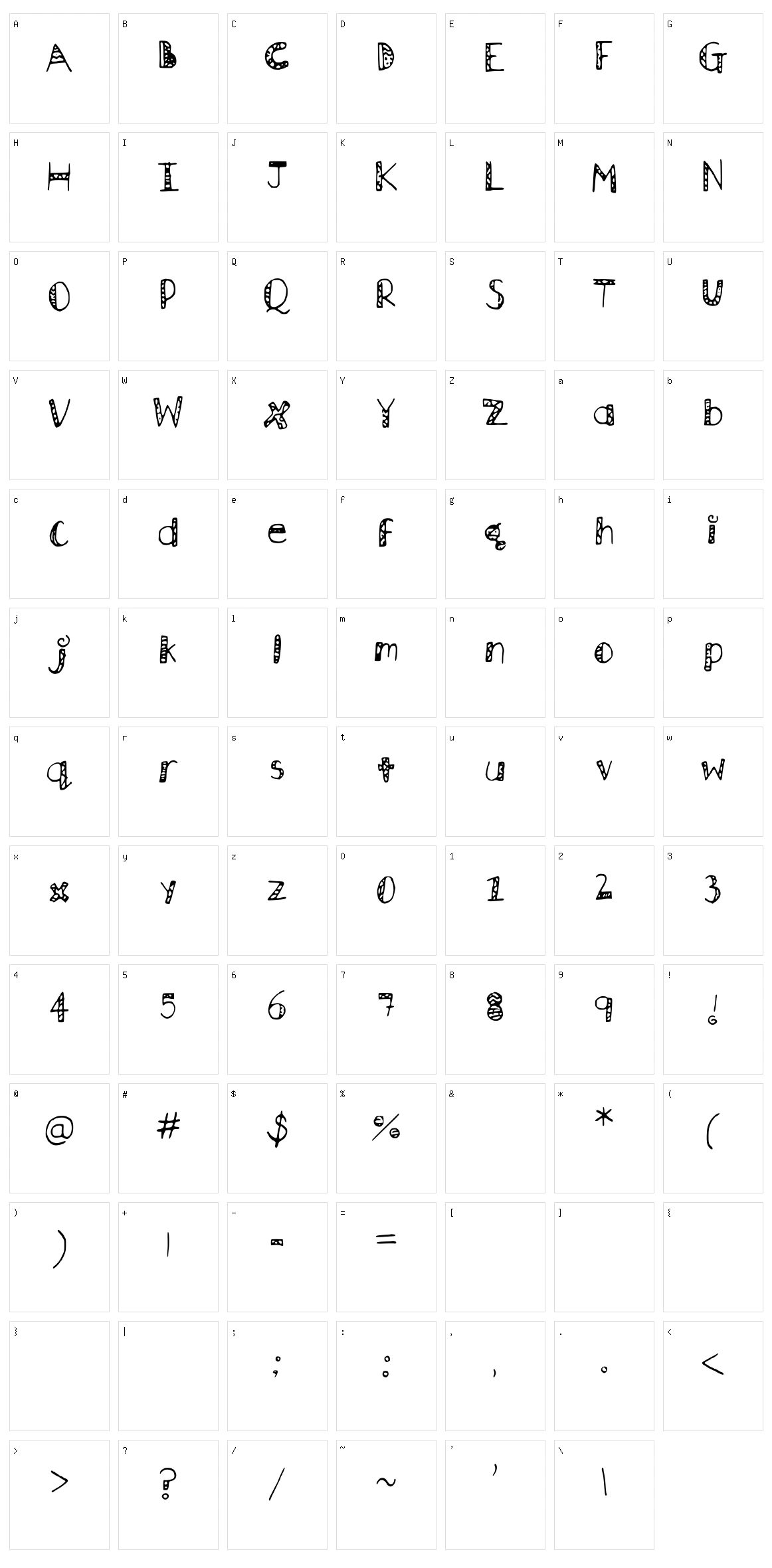
The free font Wallflower is carefully designed by Cinnamon Roberts, showcasing a thoughtful balance of creativity and usability and falls under the Cartoon font style. When you download the ZIP file, it contains only 20.78 KB of font files, making it lightweight and quick to download. Please review the license details below to understand permitted usage and distribution rights. If license information is not available, we recommend using this font for personal projects only or contacting the author directly for commercial usage permissions.